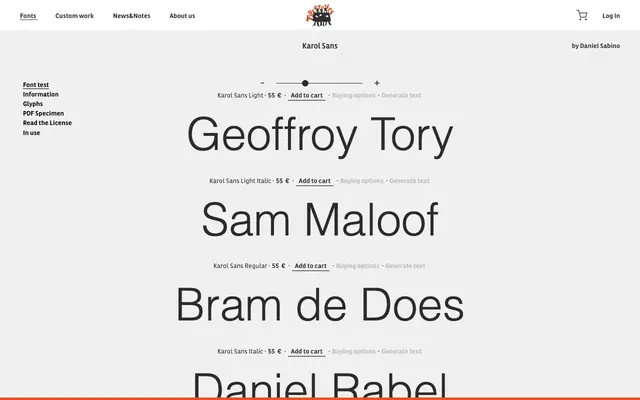
Karol Sans
A six-weight sans-serif by Daniel Sabino, each weight accompanied by a matching italic, suited to text and editorial work.
Karol Sans by Daniel Sabino spans six weights from Light to Black, with a full set of italic companions across every weight. The family totals twelve styles, offering a practical range for continuous text and editorial applications. Released by the Barcelona-based Type-ø-tones foundry, it sits in a humanist sans tradition with clear text-setting utility.
The range of weights and italics, combined with the foundry's general design sensibility, points to a humanist sans genre with text-oriented intentions. No explicit classification is given on the page.